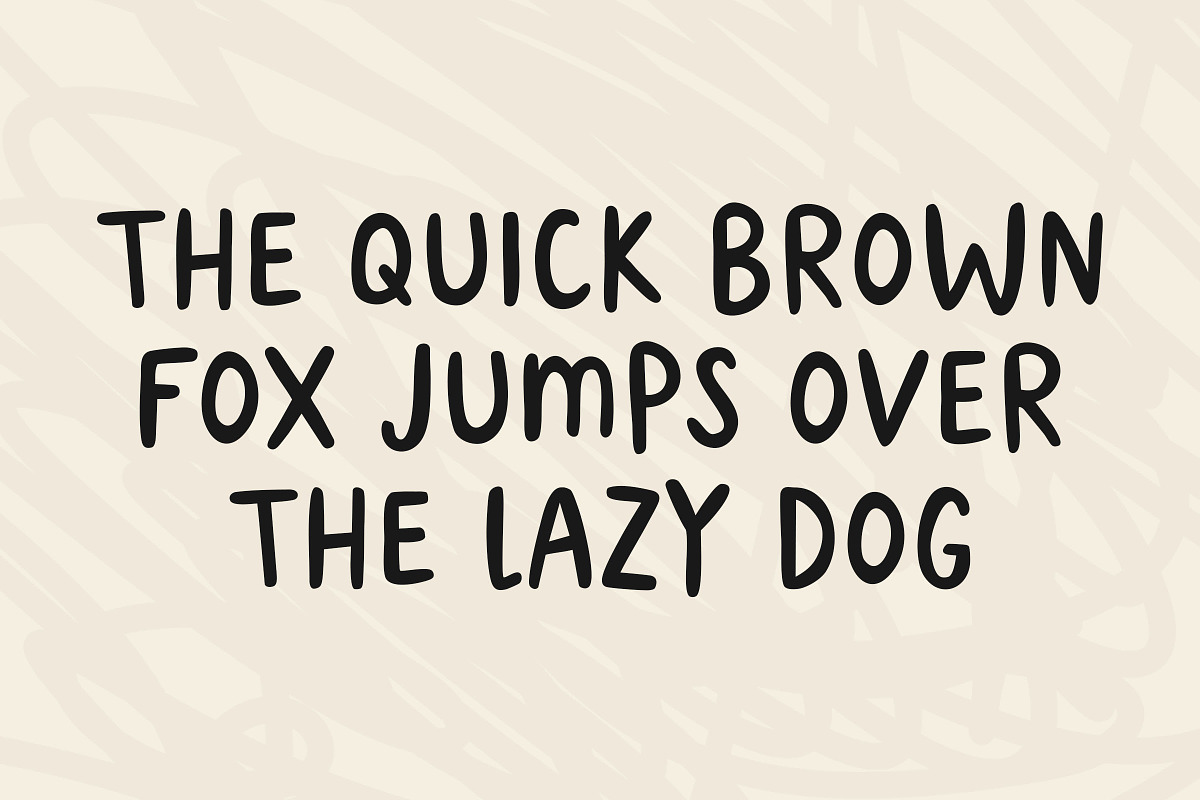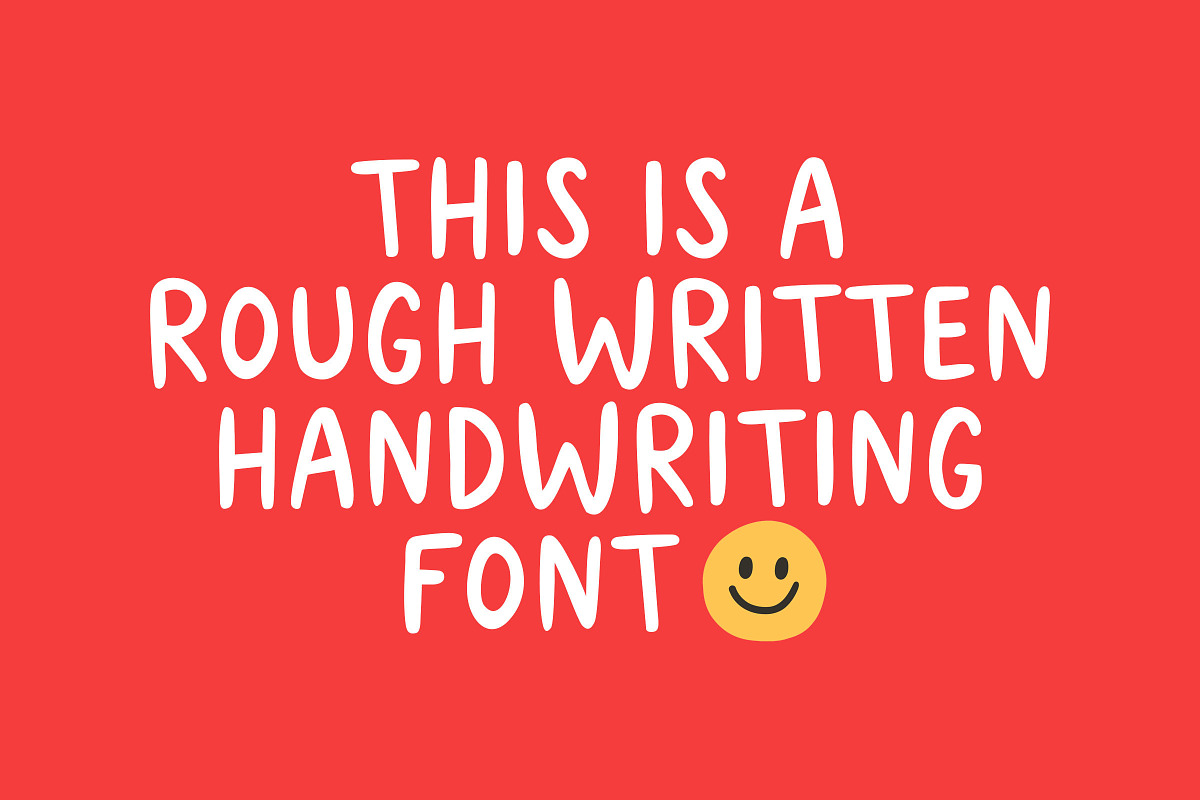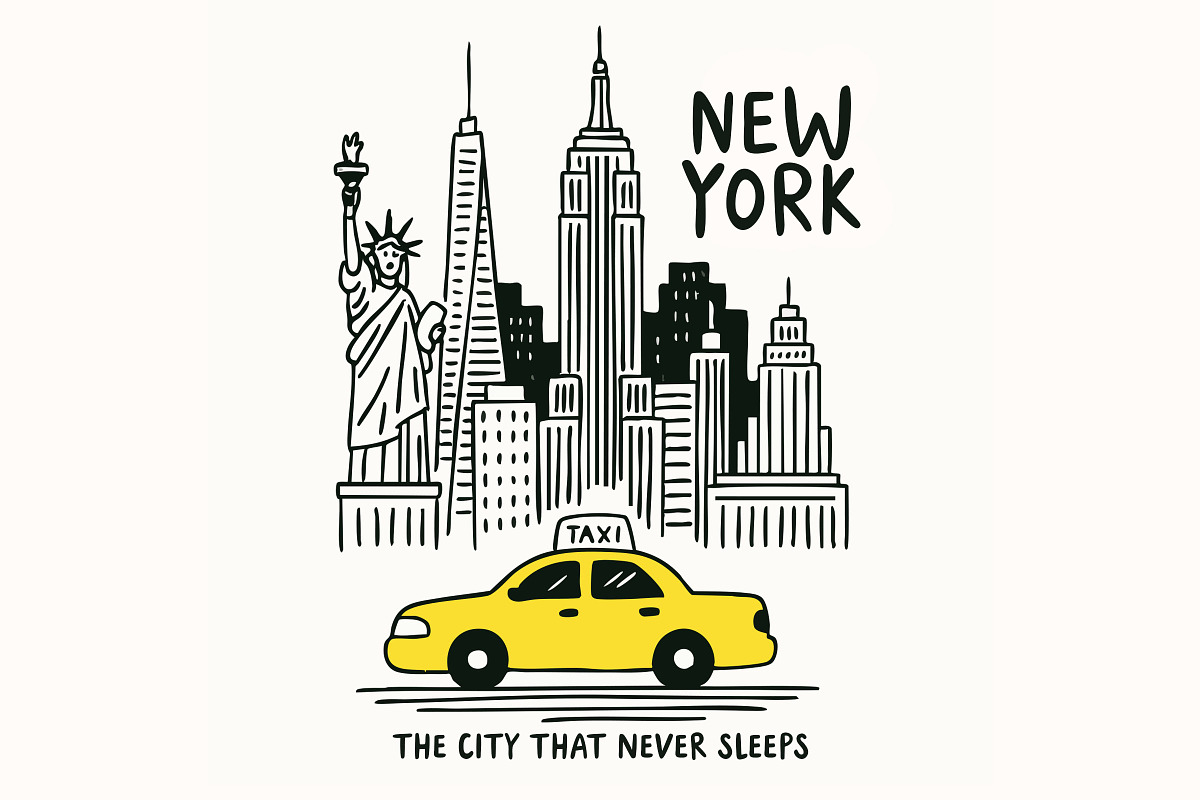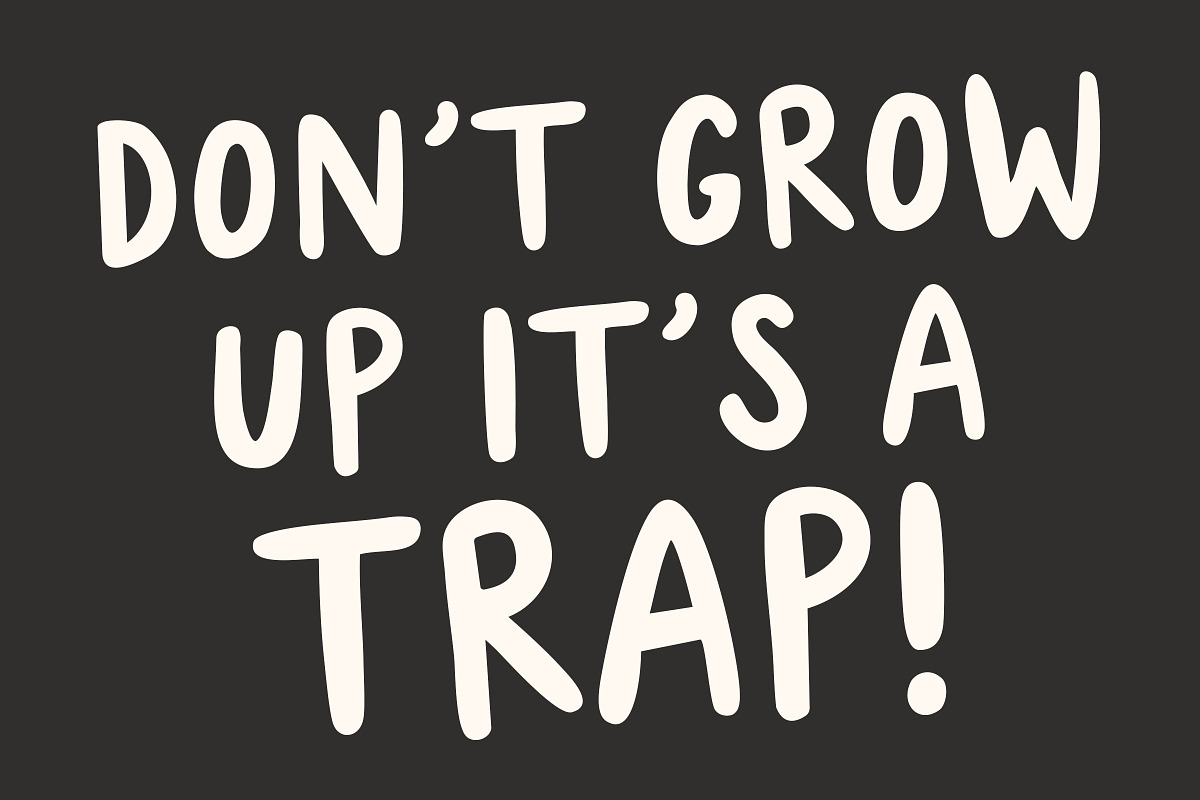
Scribble - A Handwritten Font
DETAILS Scribble is a rough scribbley written typeface perfect for any fun quirky design work! This font can be used for anything such as T-Shirt designs, phone cases, greeting cards, invitations, mugs and so much more! Get creative!